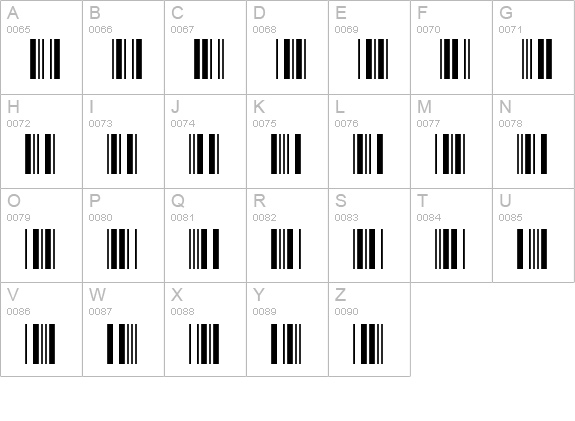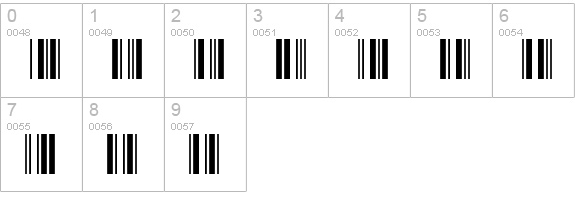
SKANDEMO Bar Code C39 Wide Font Details
SKANDEMO Bar Code C39 Wide is a distinctive, extended-width variant in the SKANDEMO typeface family \xE2\x80\x94 well suited to design and typography projects.
The SKANDEMO Bar Code C39 Wide font is a versatile and practical font that is perfect for various barcode applications. With its wide design, this font allows for more information to be encoded in each barcode, making it ideal for industries that require detailed and extensive labeling. Not only is the SKANDEMO Bar Code C39 Wide font highly functional, but it also boasts a sleek and modern aesthetic. Its clean lines and bold characters ensure that barcodes created with this font are easily scannable and visually appealing. One of the best features of the SKANDEMO Bar Code C39 Wide font is that it is available for free. That's right, you can download this font without any cost at FontsMarket.com. This makes it an excellent choice for businesses, organizations, and individuals who are looking for a high-quality barcode font that won't break the bank. Whether you need to create barcodes for inventory management, product labeling, or any other barcode-related task, the SKANDEMO Bar Code C39 Wide font is a reliable and efficient choice. Its wide format allows for more information to be encoded, ensuring that your barcodes are able to convey all the necessary data accurately. In conclusion, the SKANDEMO Bar Code C39 Wide font is a must-have font for anyone in need of a versatile and visually appealing barcode font. And the fact that it is freely available to download at FontsMarket.com only adds to its appeal. Don't miss out on this amazing opportunity to enhance your barcode creations with this exceptional font.